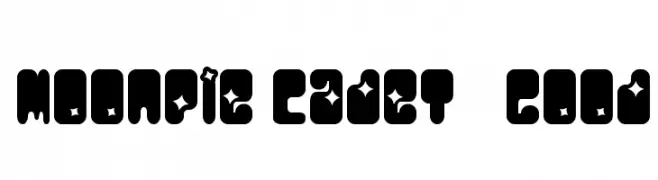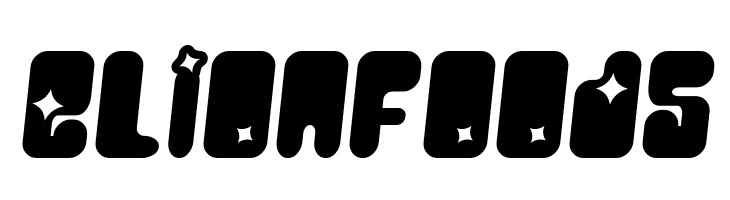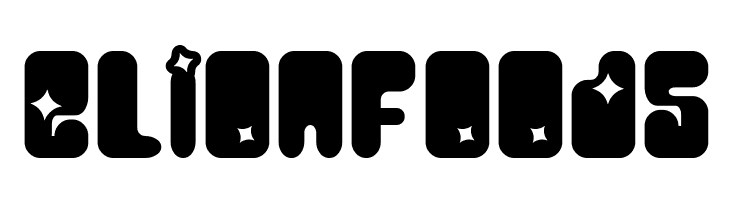
A bold, playful font with star-shaped cutouts and a futuristic, space-themed design.
A bold, space-themed font with playful star cutouts and geometric shapes.